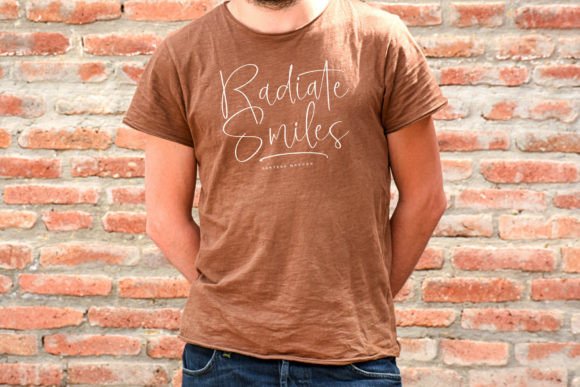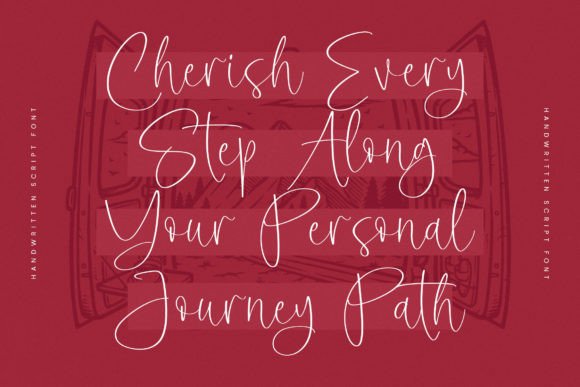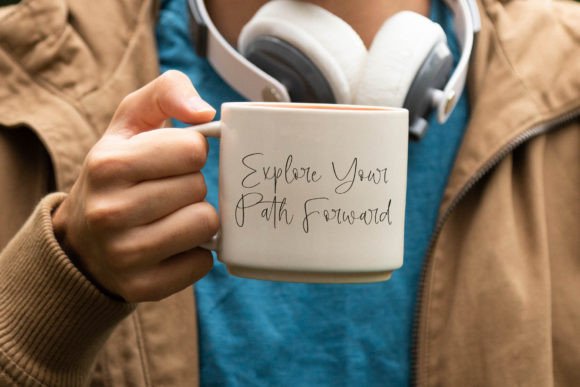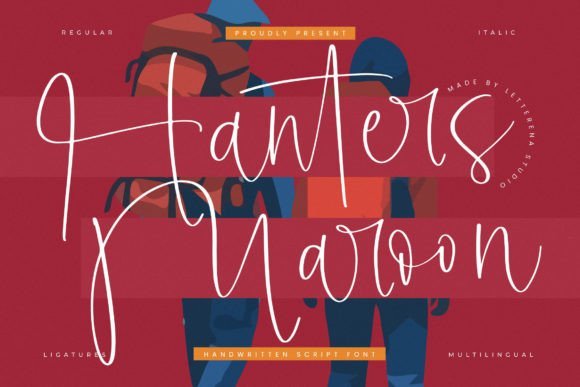
Introduction to Hanters Maroon Font
Hanters Maroon is a stylish handwritten script font exuding elegance and charm.
Its fluid strokes and natural flow create a captivating, sophisticated look Perfect for adding a personal touch to invitations, branding, or social media, this font brings a sense of warmth and creativity to any design.